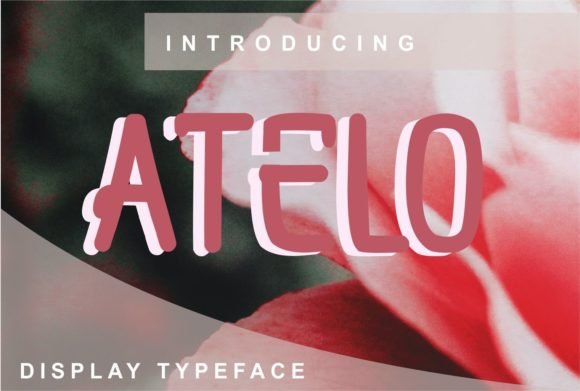
Unlock the Power of Typography with Atelo Font
| 👤 Author | Letteria_studio |
Meet Atelo Font, a clean and adaptable display font designed to help you take your creations to the next level. Whether you’re working on a marketing campaign, designing a logo, or crafting a beautiful piece of art, Atelo Font is the perfect companion. Its versatility and clean lines make it an invaluable asset for designers, allowing you to express your unique style and bring your ideas to life.
Atelo Font Key Features
- Unique Characteristics: Atelo Font features a unique blend of modern and vintage elements, making it ideal for designs that require a touch of sophistication and elegance
Atelo Font Review
As a designer, I was excited to dive into the Atelo Font, a sans-serif typeface designed for digital use. Here’s my honest review.
- The Atelo Font has a clean and modern aesthetic that makes it perfect for digital interfaces.
- The font is highly legible, even at small font sizes, making it ideal for mobile and web applications.
- The font family includes a range of weights and styles, giving designers plenty of flexibility to create visually appealing layouts.
- The Atelo Font is highly customizable, allowing designers to adjust the font’s characteristics to fit their project’s needs.
- The Atelo Font may not be the best choice for print materials, as its digital-centric design can result in a slightly pixelated appearance when printed.
- The font’s thin weights can make it difficult to read in certain lighting conditions.
- The Atelo Font may not be as distinctive or attention-grabbing as some other sans-serif typefaces.
While the Atelo Font has its limitations, it’s a solid choice for digital design projects that require a clean and modern aesthetic. Its high legibility and customization options make it a versatile font that can be used in a variety of applications.
Getting the Most Out of Ateco Font
For optimal results, use Ateco Font in conjunction with bold and italic text to create emphasis and hierarchy. Experiment with different font sizes and colors to create visual interest. Ateco Font is particularly well-suited for headings, titles, and captions.
Ateco Font is commonly used for:
- Restaurant and cafe menus
- Product packaging and labels
Comparison to Atelo Font: While both fonts have a modern feel, Montserrat has a more geometric and industrial look, whereas Atelo Font has a more rounded and elegant appearance.